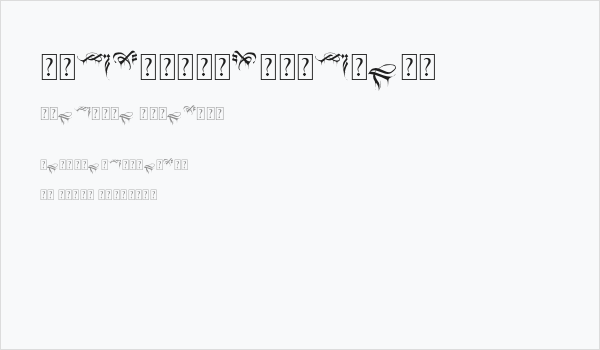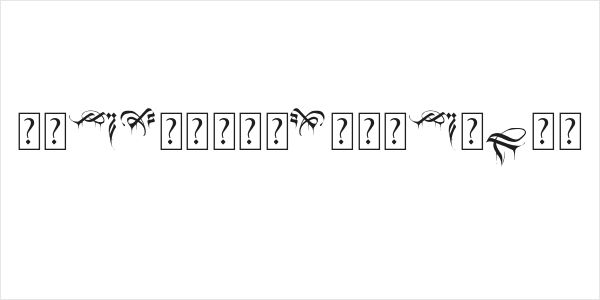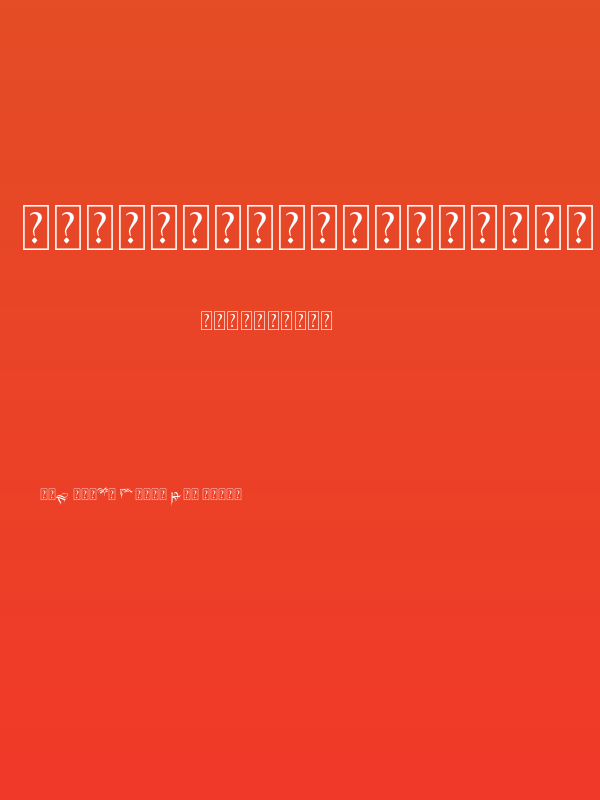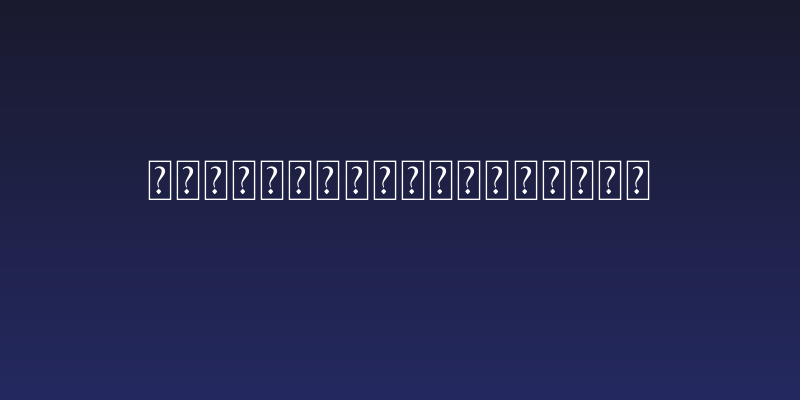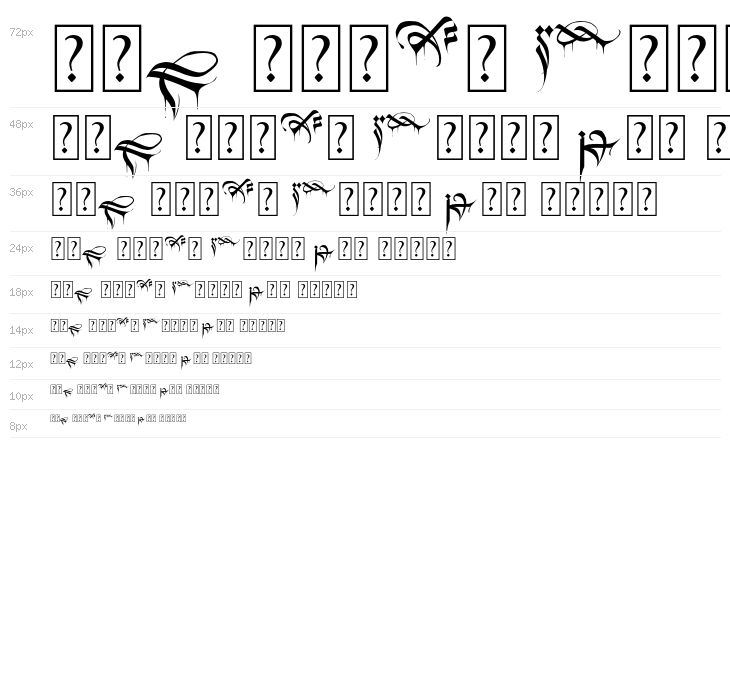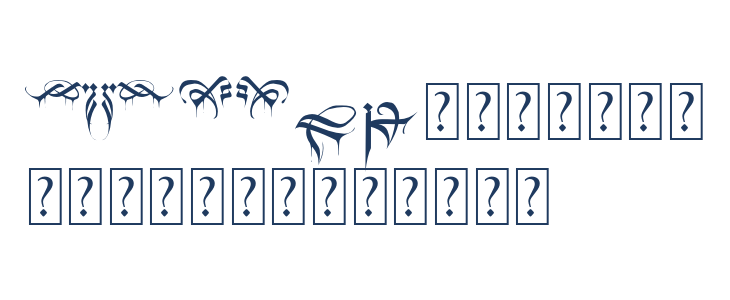
BlackBloodOrnament Font
BlackBloodOrnament Description
This font features a highly decorative and intricate design, characterized by sharp, angular lines and ornamental flourishes. The letters are embellished with elaborate details that give them a gothic and mysterious appearance. The overall style is reminiscent of ancient scripts or tribal tattoos, with a dark and edgy aesthetic. The characters are bold and striking, making them suitable for dramatic and impactful designs. The font's unique style is ideal for projects that require a sense of mystique and intensity.
| Overall Style | Gothic, Decorative |
| Proposed Projects | Ideal for tattoo designs, gothic-themed posters, album covers, and fantasy book titles. |